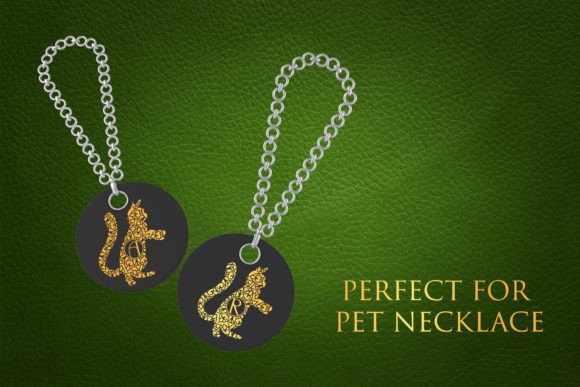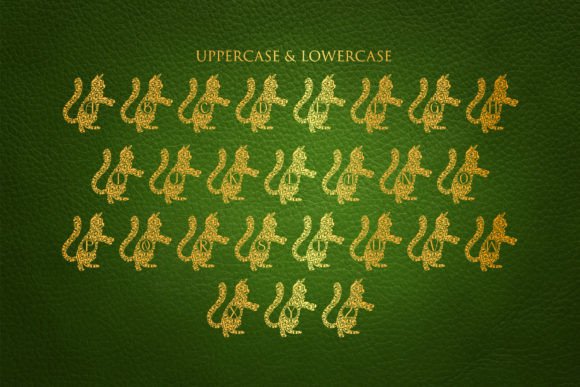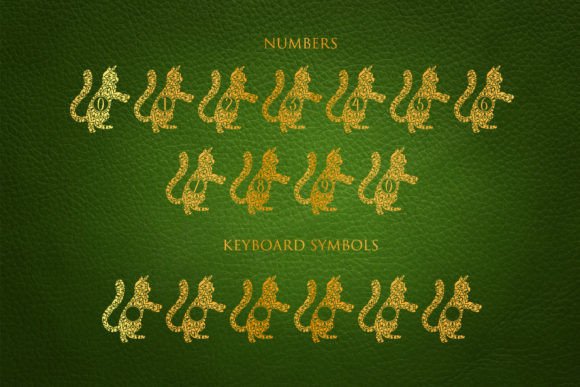
Introduction to Friendly Cat Mandala Monogram Font
Friendly Cat Mandala Monogram is the ultimate cat-lovers font.
This purrfect decorative typeface will enhance any creative project dedicated to kittens .
Key Features of Friendly Cat Mandala Monogram Font